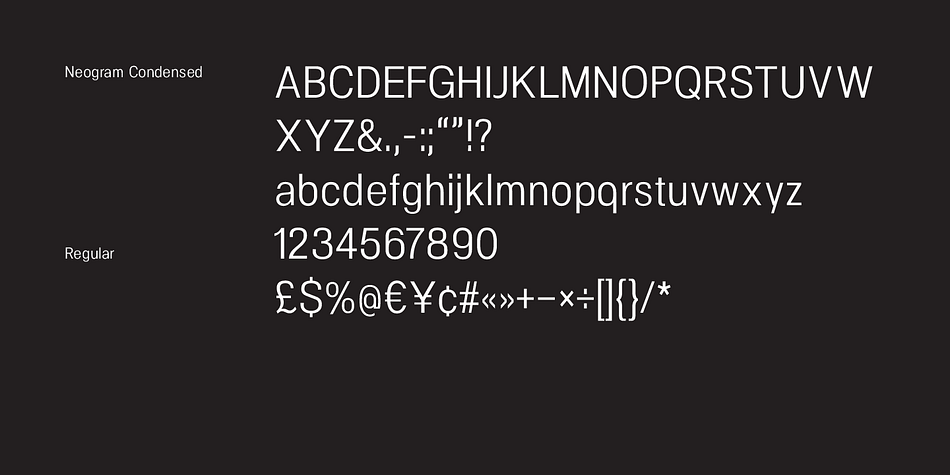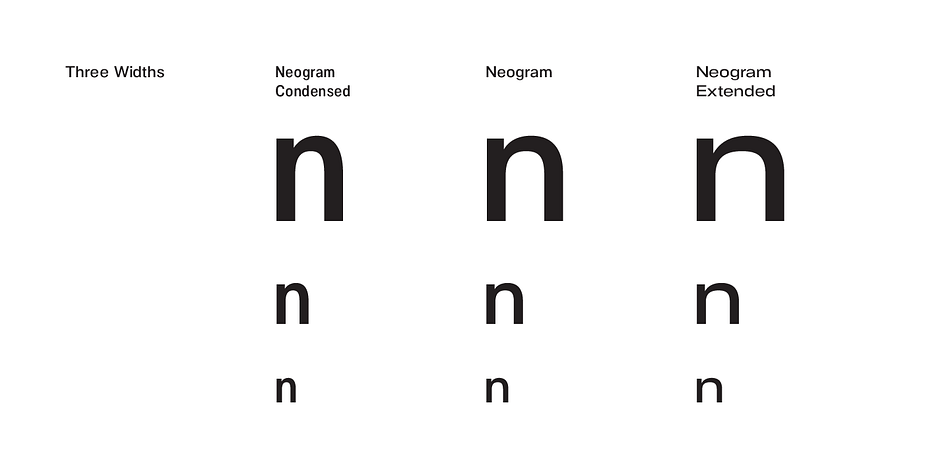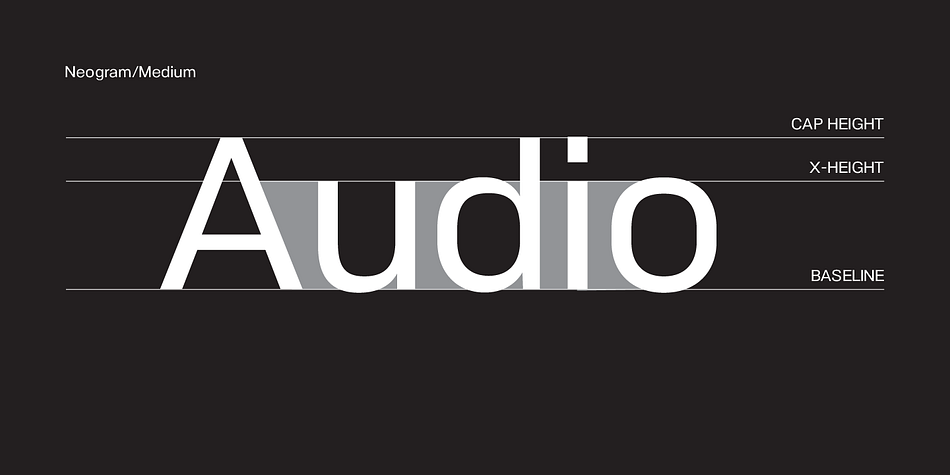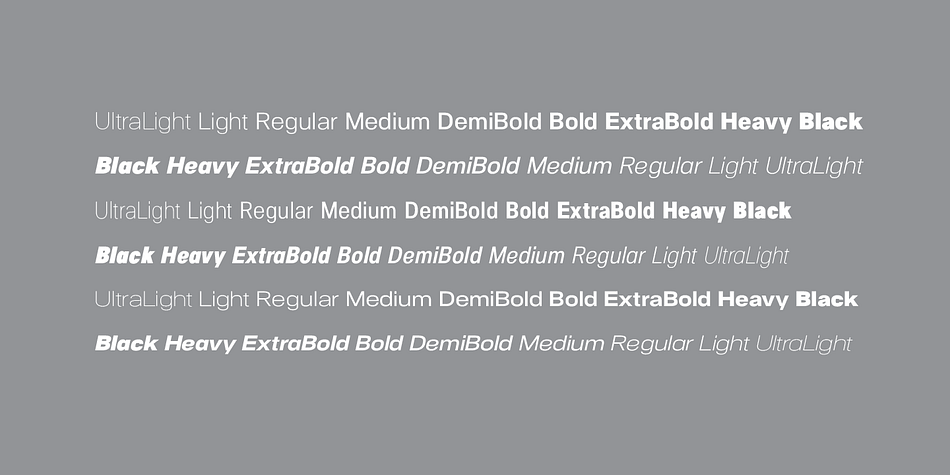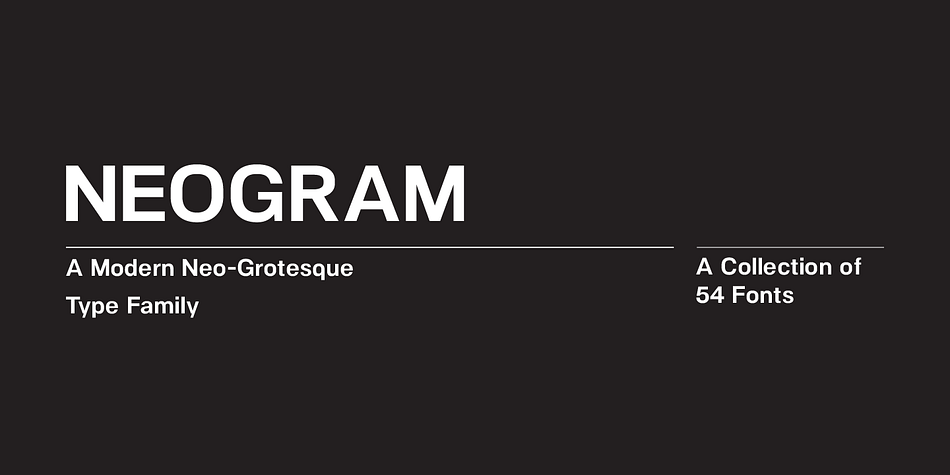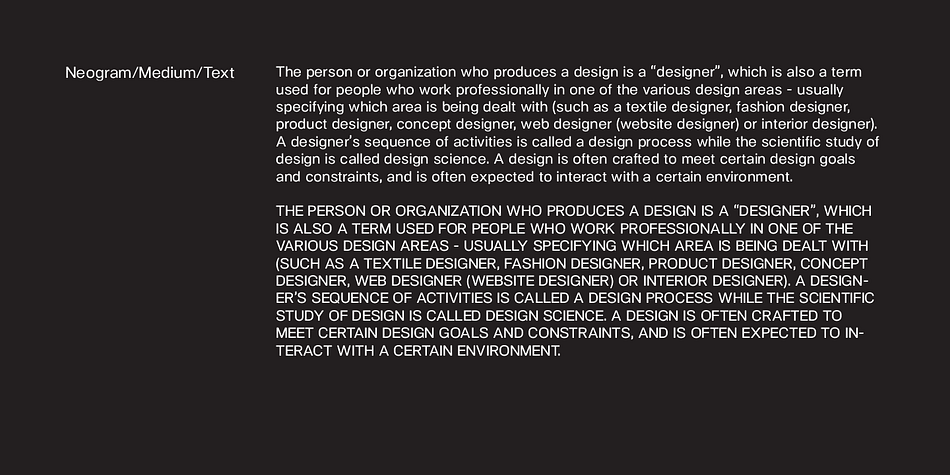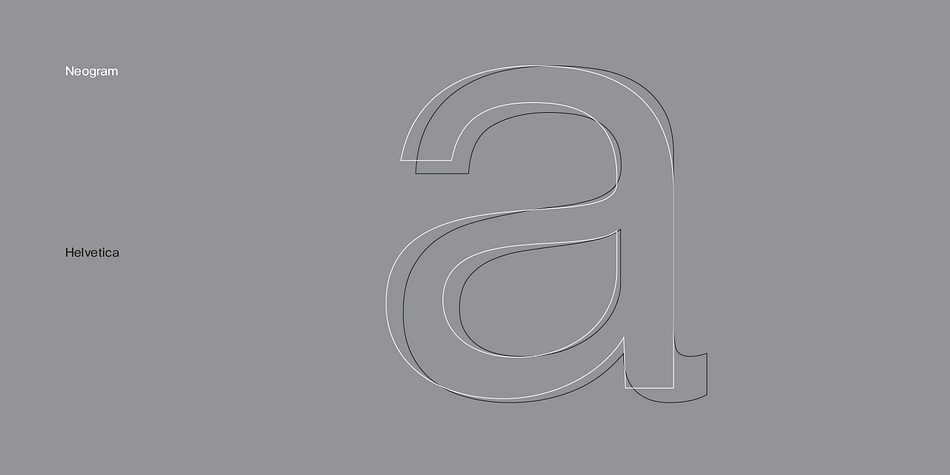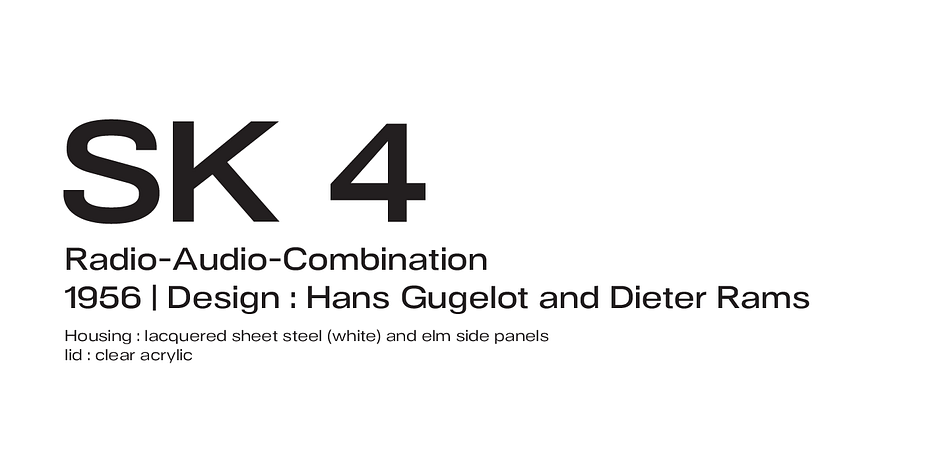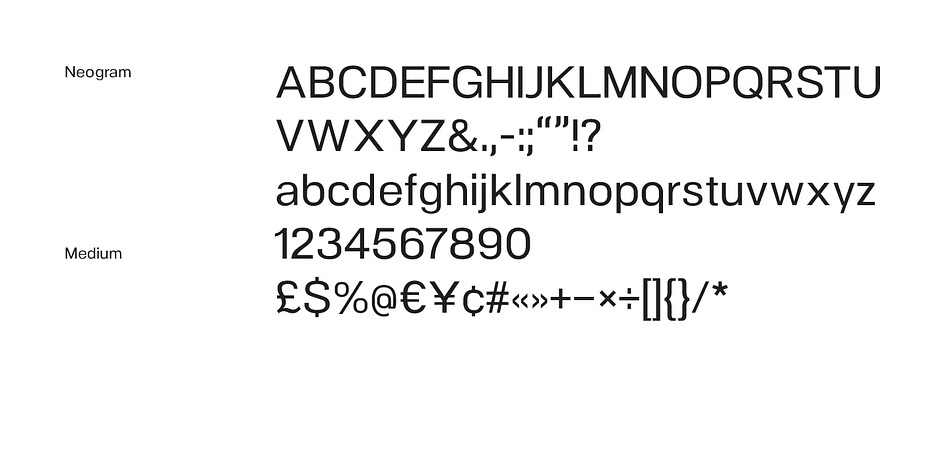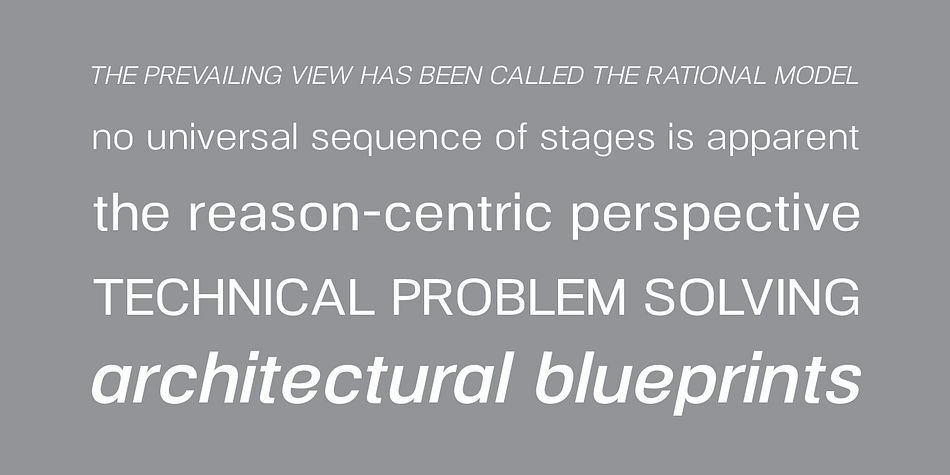
NeoGram Condensed is a sans serif font family. This typeface has eighteen styles and was published by The Northern Block.
Neogram is a modern neo-grotesque type family inspired by the early roots of Swiss design. The concept was to create a neutral typeface that would demonstrate great clarity of form while been understated in it’s intended use and application. Stroke contrast is slightly increased, with a more geometric style letter shape giving a warmer and stronger personality. Details include nine weights with matching italics, three variable widths, 540 characters, five variations of numerals, Opentype features inferiors, superiors, fractions, case-sensitive punctuation, and language support covering Western, South and Central Europe.